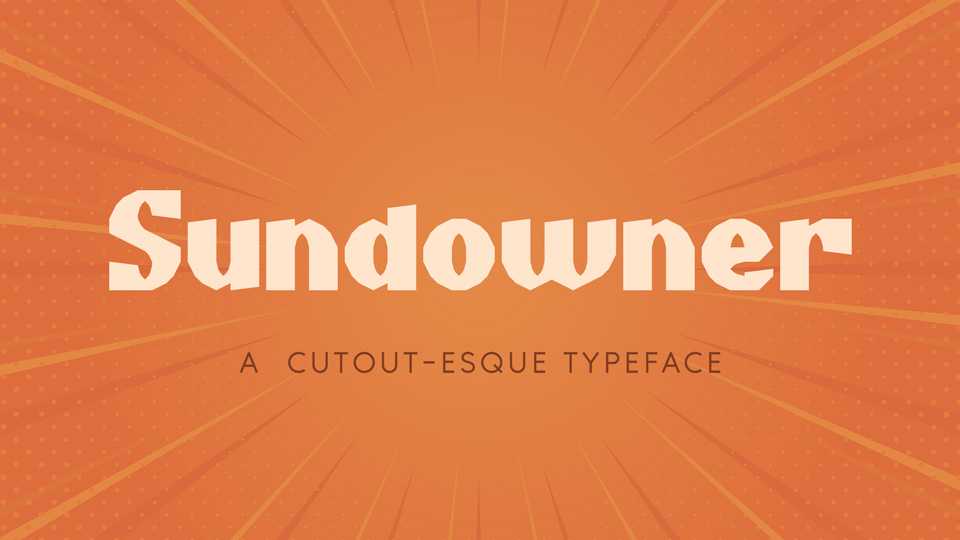
Download Sundowner font, a faux-bezier typeface with a cutout-esque look. Sundowner font is perfect for posters, headlines, prints and other artworks.